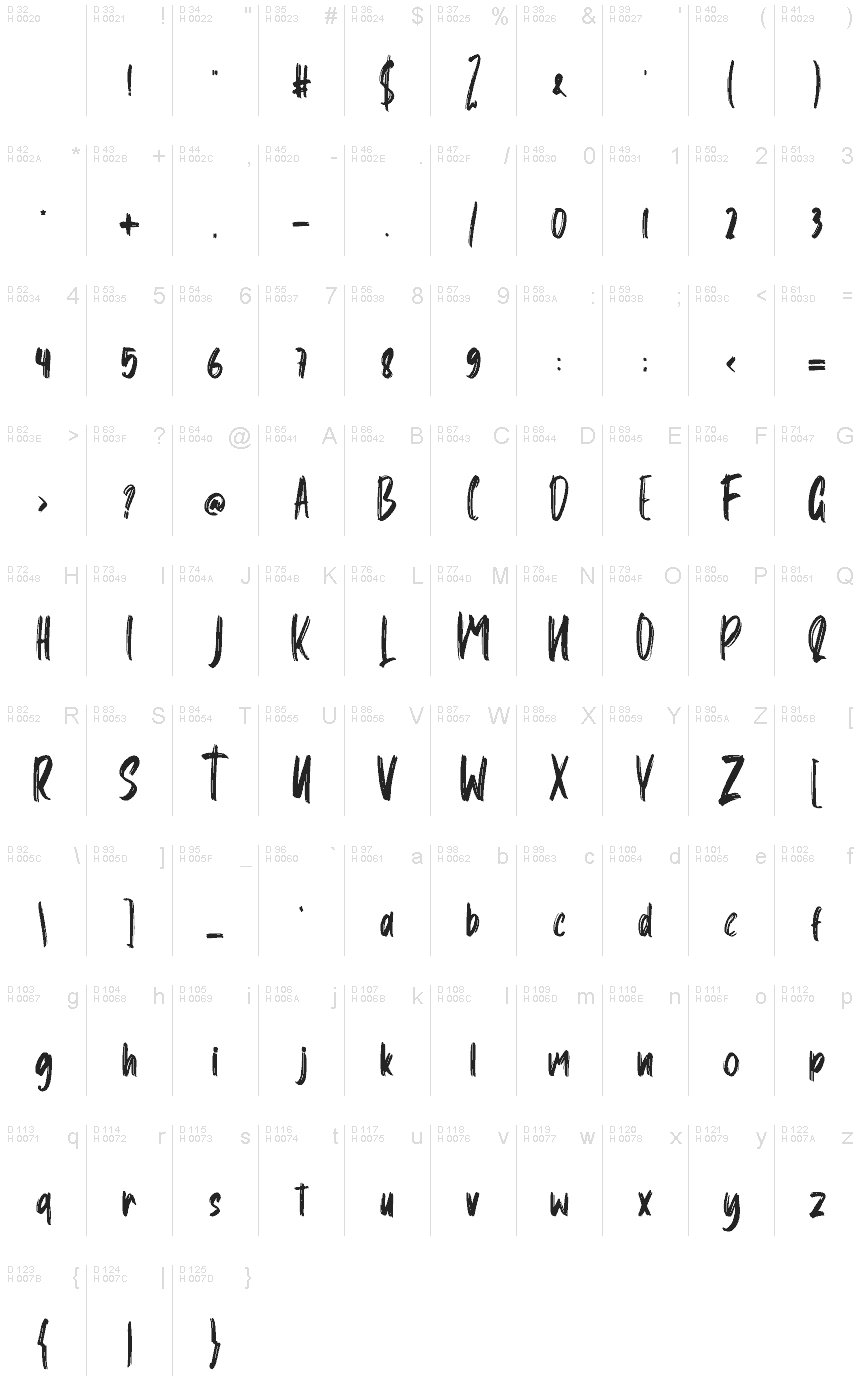
Hackons
It doesn’t matter how much experience you have, you always find new ways to be creative. This free Hackons brush font is perfect for logo design, headlines, social media posts, branding, flyers, web page design, T-shirts and other merchandise, and anything you can think of that requires an informal feel.
Hackons with its grunge background, bold characters, and varied style will not only stand out but will also bring life and humor to any project. Designed by Skiiller Studio, this brushed font is available in 2 different versions that will spice up your design. Use it to create unique fonts on your business and personal projects!